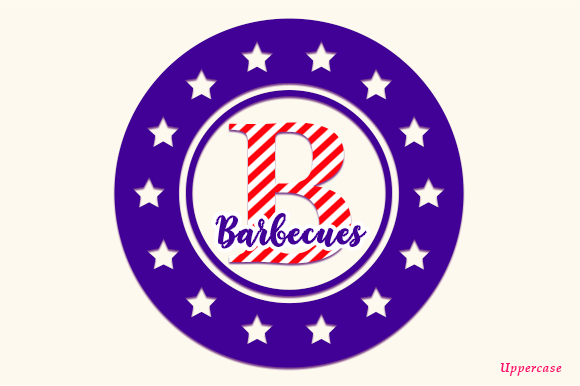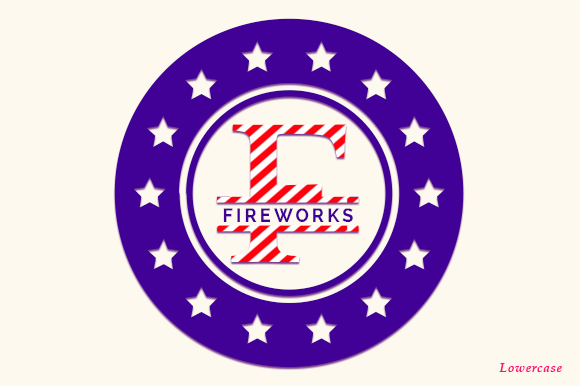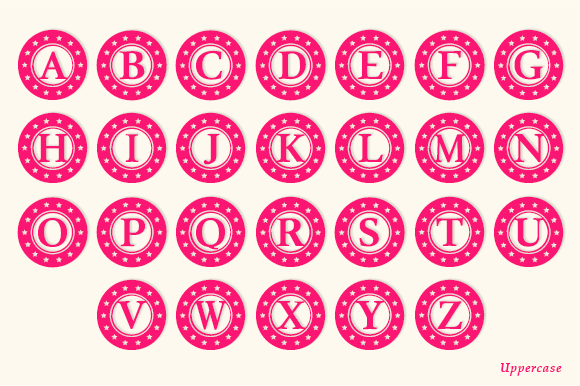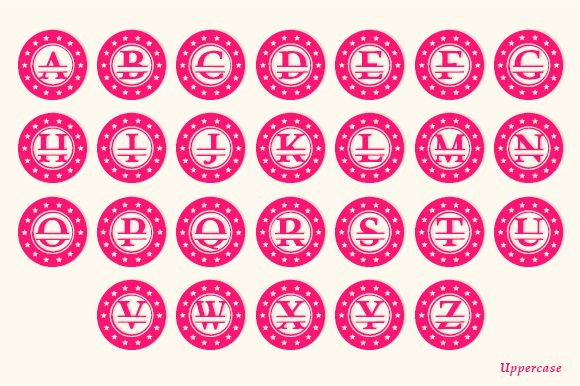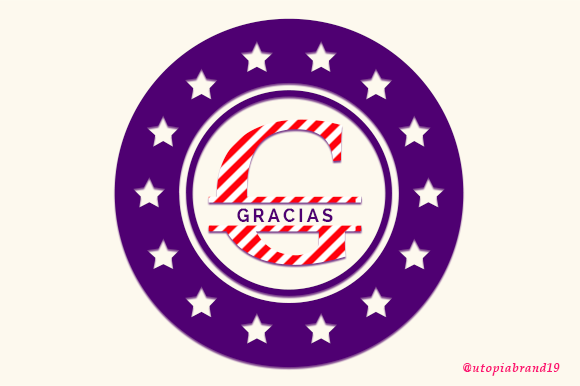
Introduction to Rhode Island Monogram Font
Rhode Island Monogram is a festive decorative font, featuring lovely ornaments.
Fall in love with its authentic feel and use it to create gorgeous, beautiful stationary art, eye-catching social media posts, and cute greeting cards .
Key Features of Rhode Island Monogram Font